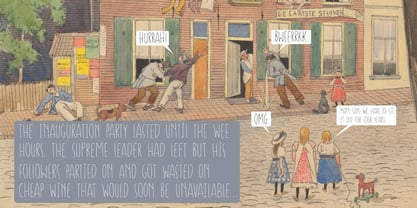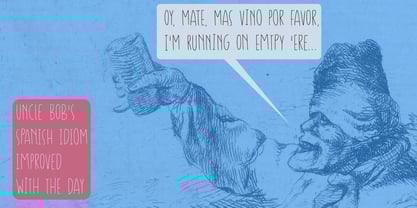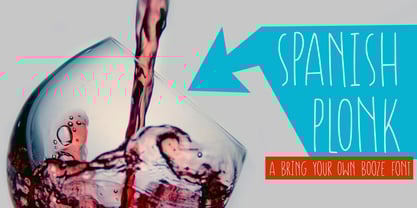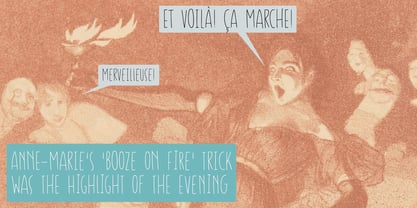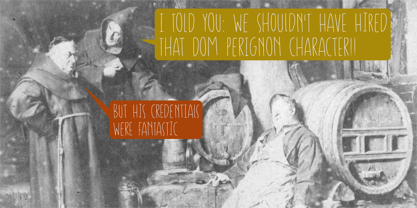
Spanish Plonk
by Hanoded
The Spanish Plonk Font Family was designed by David Kerkhoff and published by Hanoded. Spanish Plonk contains 2 styles and family package options. More about this family
‘Plonk’ in British, New Zealand and Australian vernacular means ‘cheap wine’. It is also called ‘Cardboardeaux’, or (in my country) ‘Château Migraine”. Plonk is often bought in 5 liter boxes or even plastic bottles. It doesn’t really taste that great, but it gets the job done - especially when you’ve already had a few.
Apparently it will not be that cheap for long, as certain governments are thinking about slapping a 200% import tax on European wine - even the cheap stuff, so you’d better get yourself a cellar full before that happens!!
Spanish Plonk is a handmade, all caps, Tall & Thin font. It comes with extensive language support and a lovely set of alternates for the lower case glyphs.
Hanoded is run by Dutchman David Kerkhoff. His fonts are a mishmash of styles, as he just creates whatever pops into his head. You will find a lot of brush fonts in his collection, as his favourite tools are brushes and Chinese ink, with cartoon style fonts and script fonts complementing his repertoire. Aside from making fonts, David occasionally guides tours in far-flung places, renovates his '30's house and tries reasoning with his wife and (teenage) kids. Not an easy task!